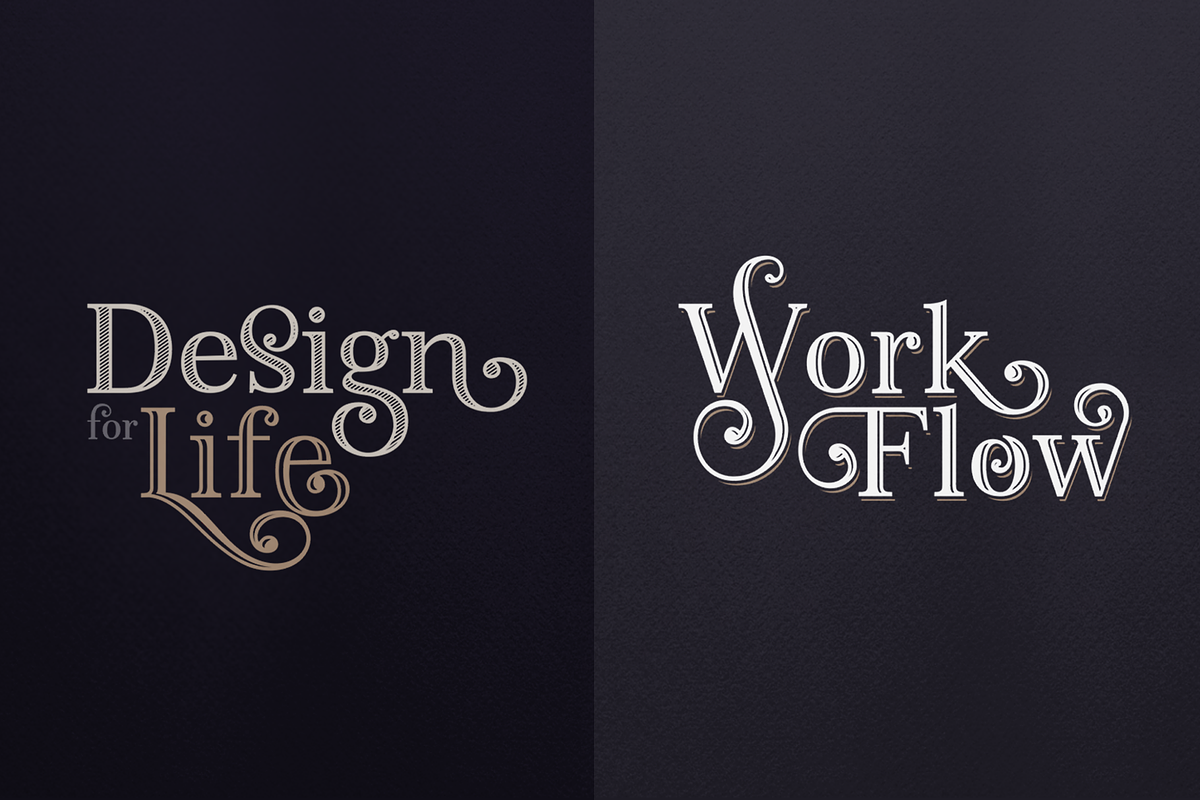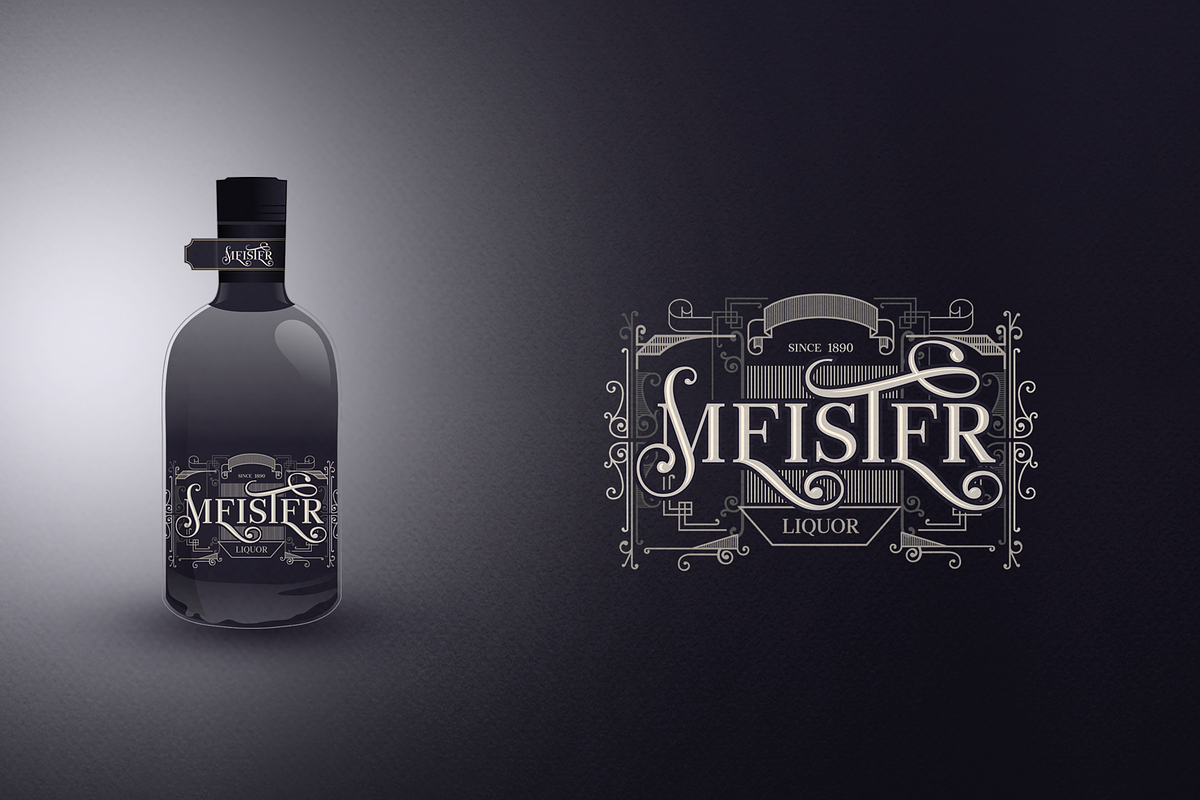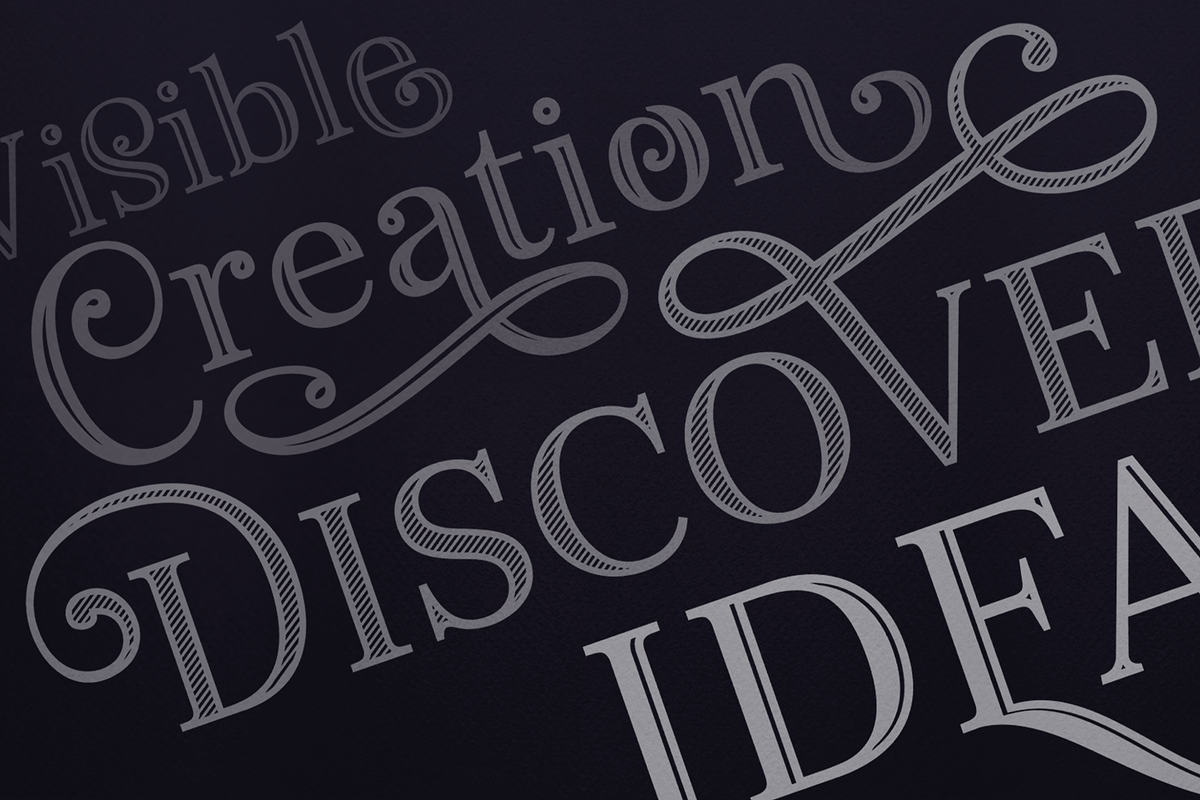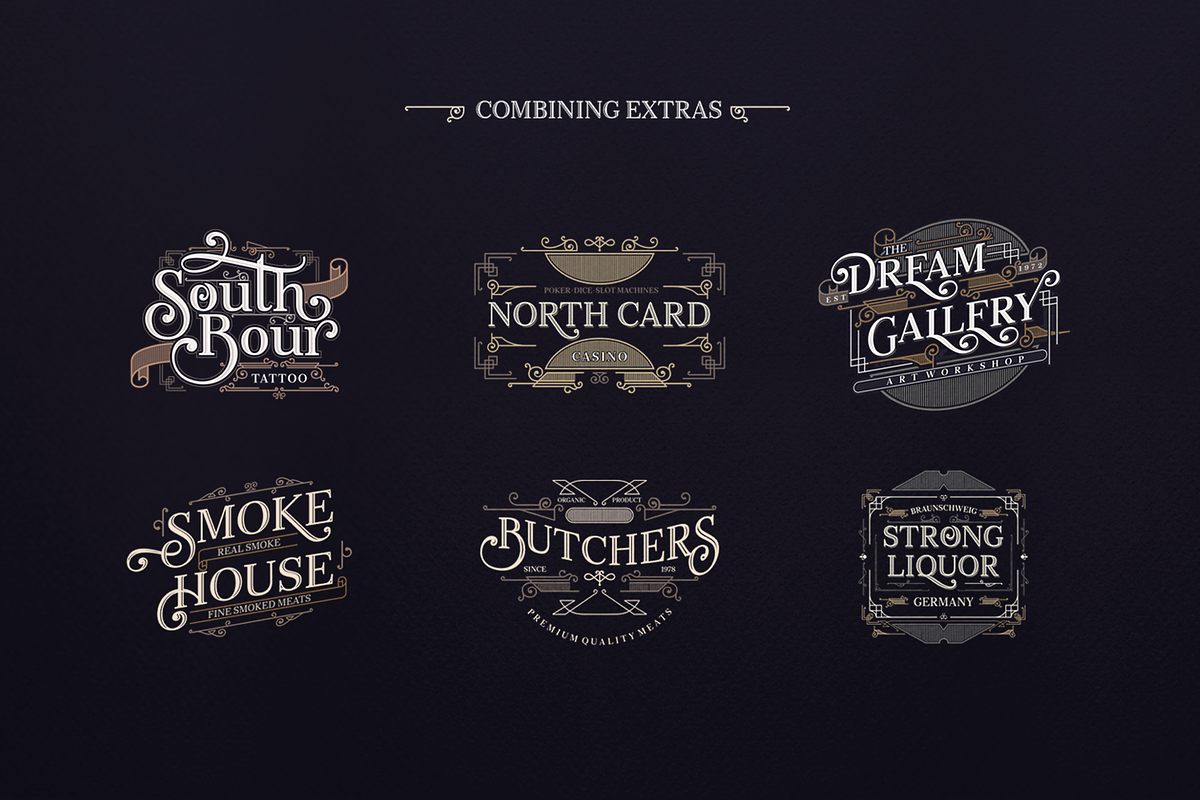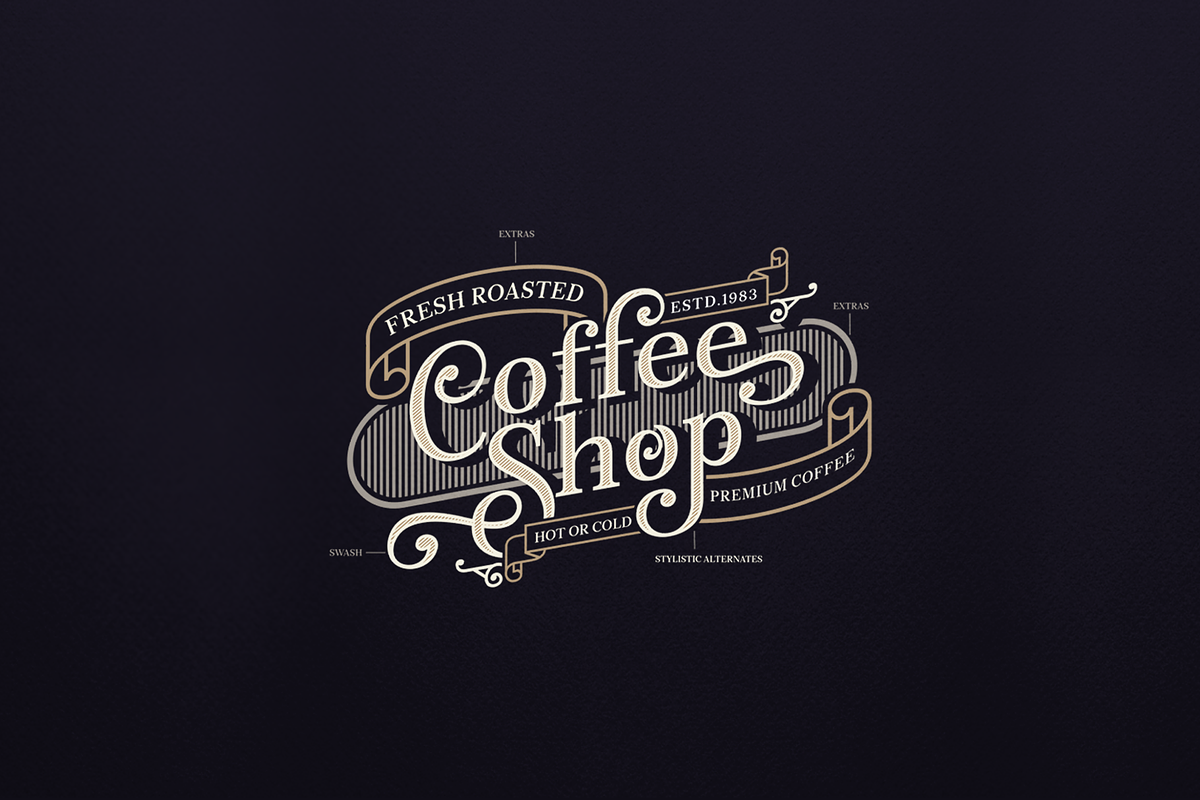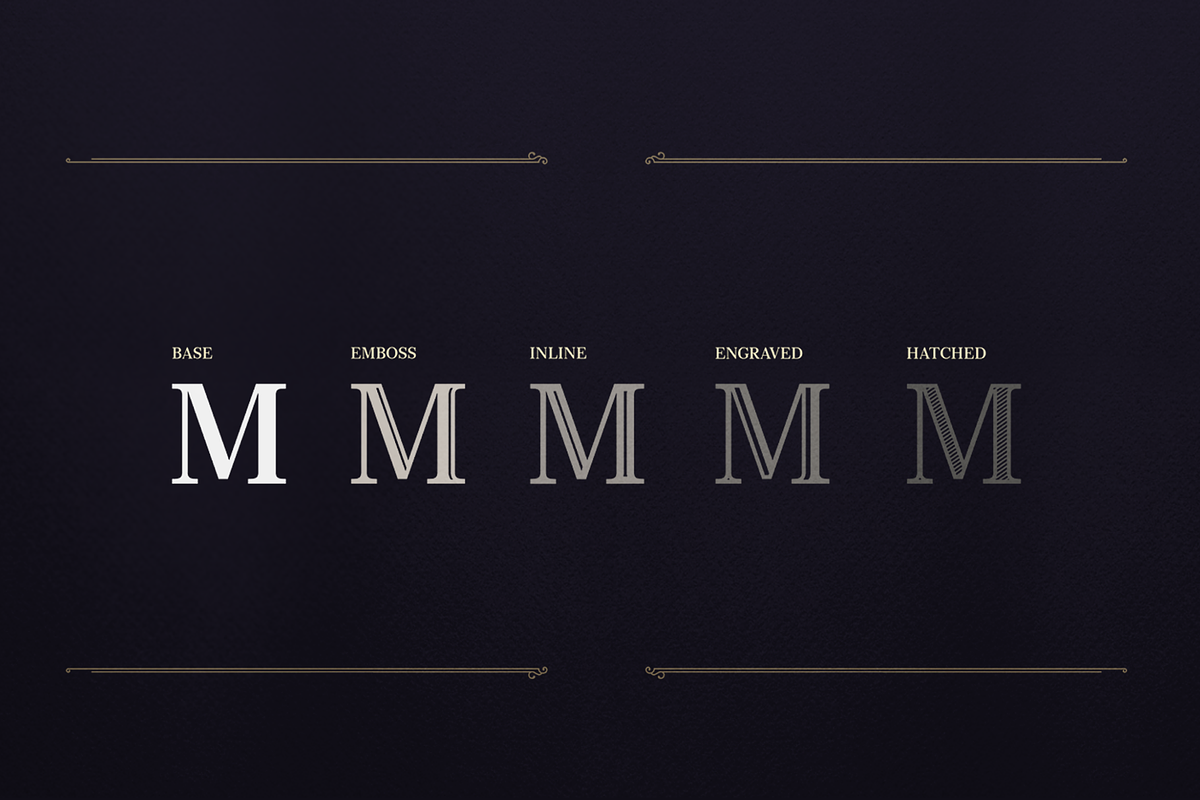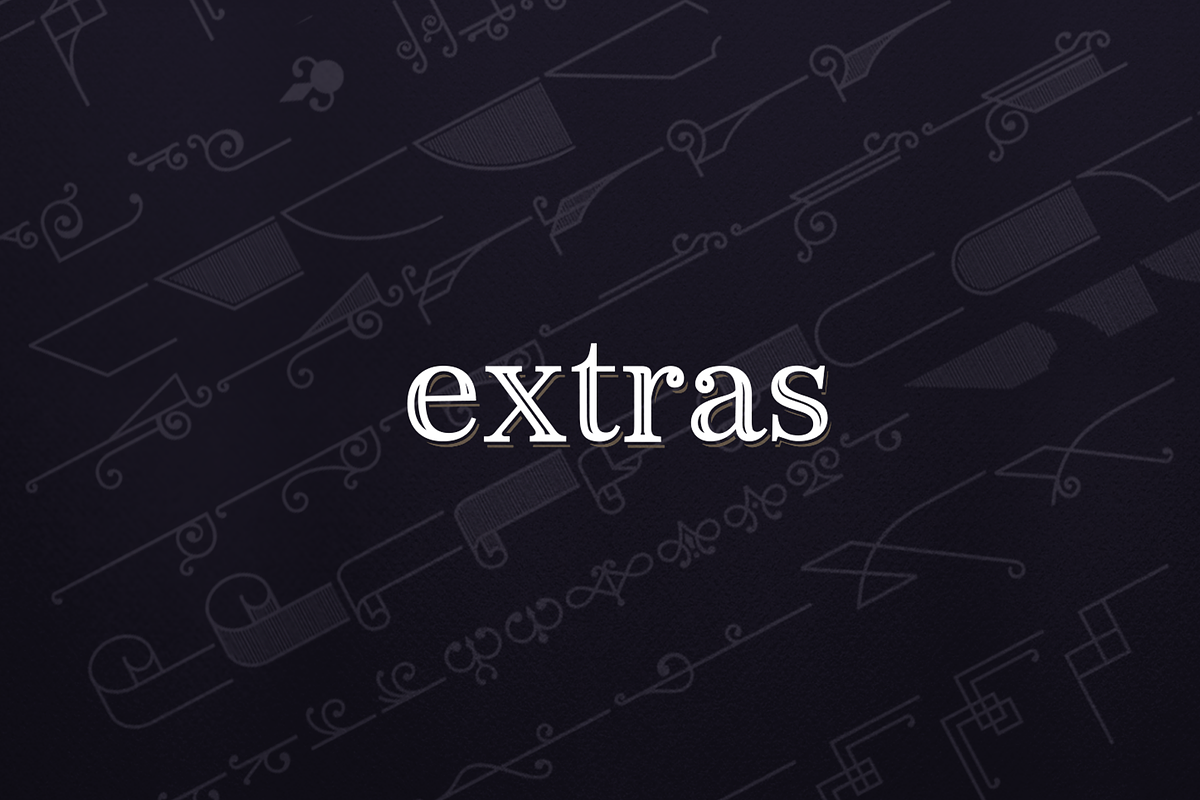
Monstice Family Fonts + EXTRAS
Monstice Family is elegant playful and decorative, including five style basically Base serif design and then expand to Engraved, Inline, Hatched, Emboss styles. and extra element decorative, The font is well suited for display, header, poster, book covers,packaging and among other uses. Every part of them have opentype features, swash, ligatures, and alternates with including the extra decorative element this font is easy to use and which allow designer to exploration features to create their own combinations.